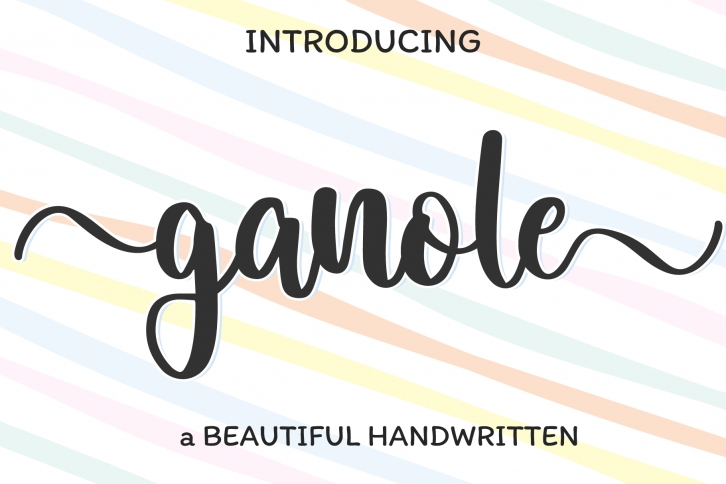
Ganole is a magical script font carefully created with an elegant vibe. This font is PUA encoded which means you can access all of the glyphs and swashes with ease!